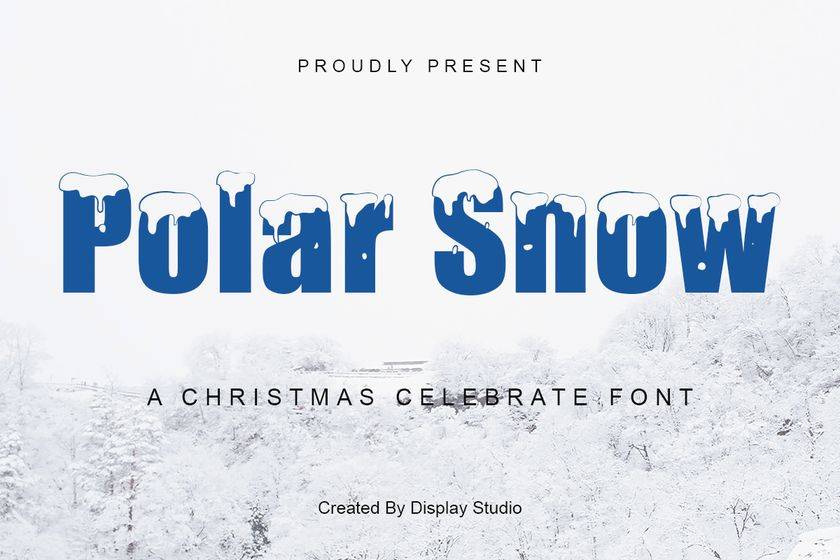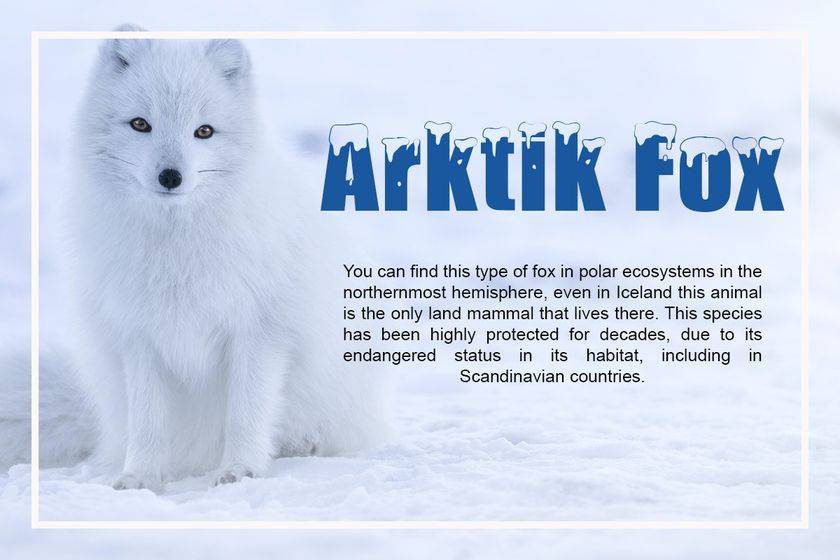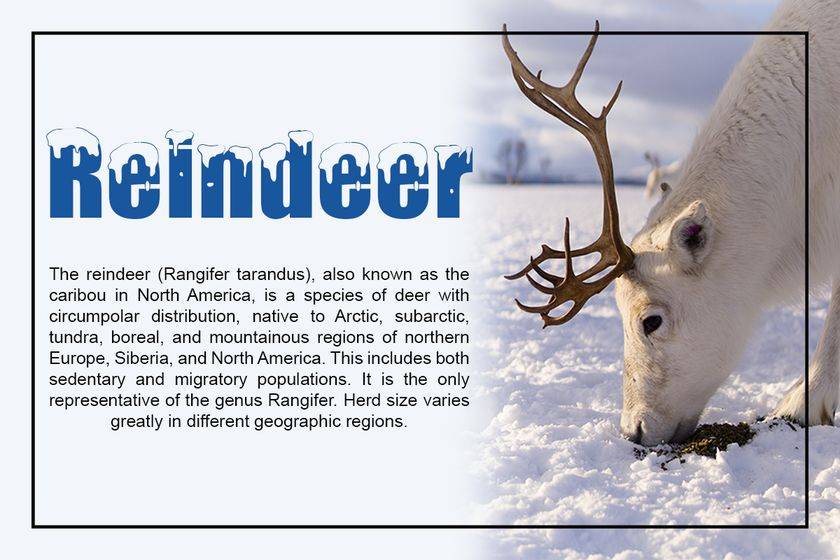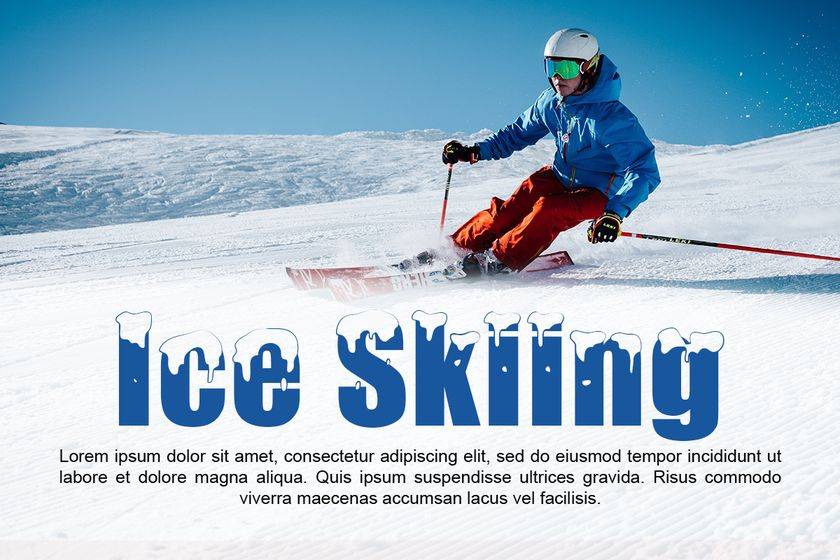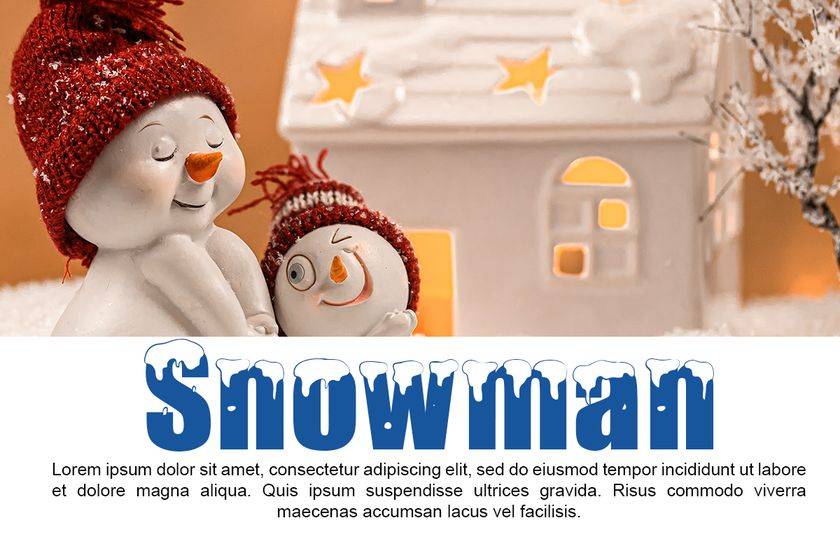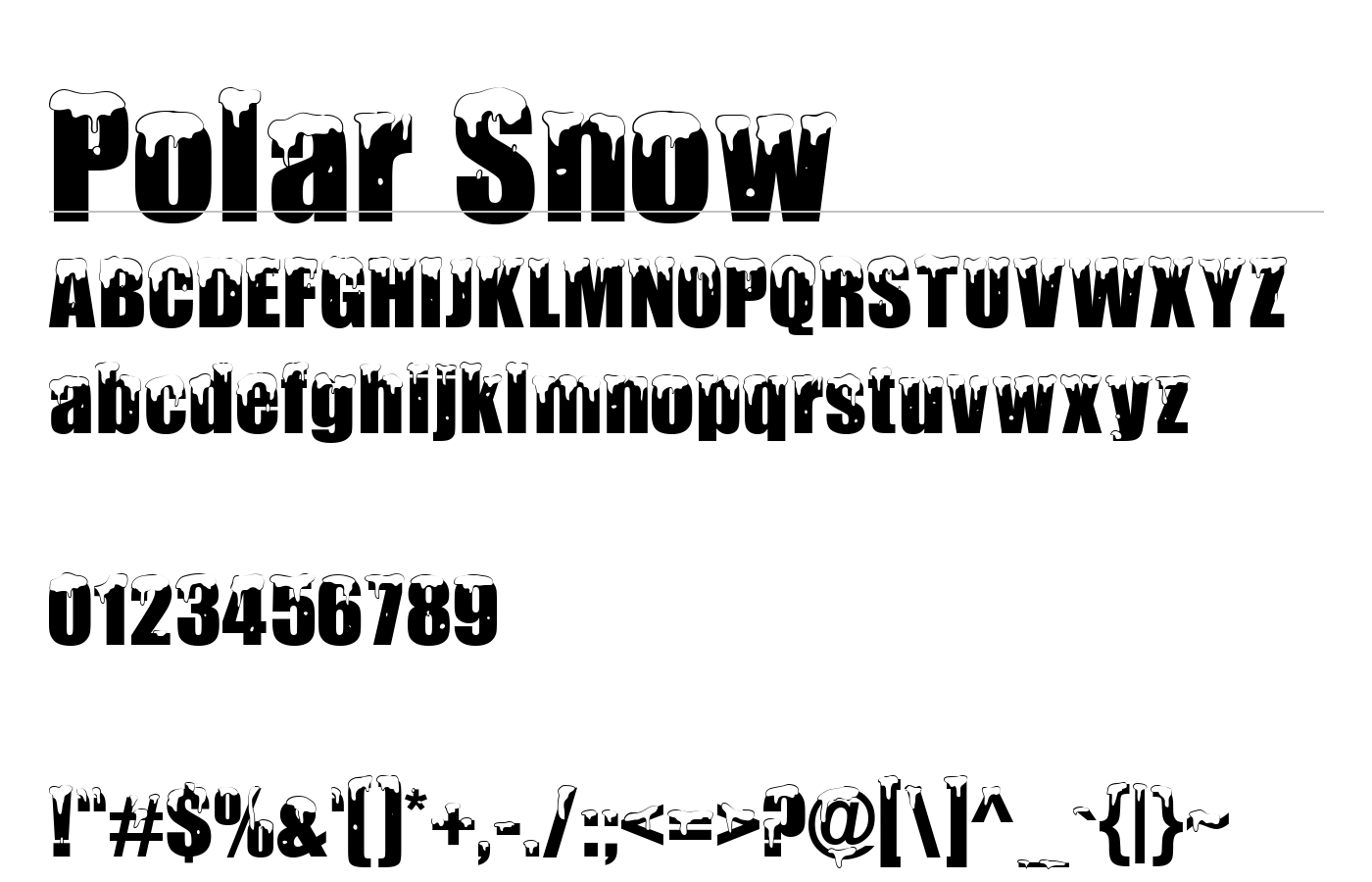
Polar Snow is a bold, condensed slab serif font with a playful, wintry theme, featuring dripping snow caps on each character. Its strong, blocky letterforms combined with the unique snow effect make it ideal for festive holiday designs, seasonal branding, and eye-catching headlines that need a fun and spirited touch. This font works best in large sizes where its decorative details can shine and add a cozy, winter-inspired personality.
Polar Snow Font
About Polar Snow Font
| Font family | Polar Snow Font |